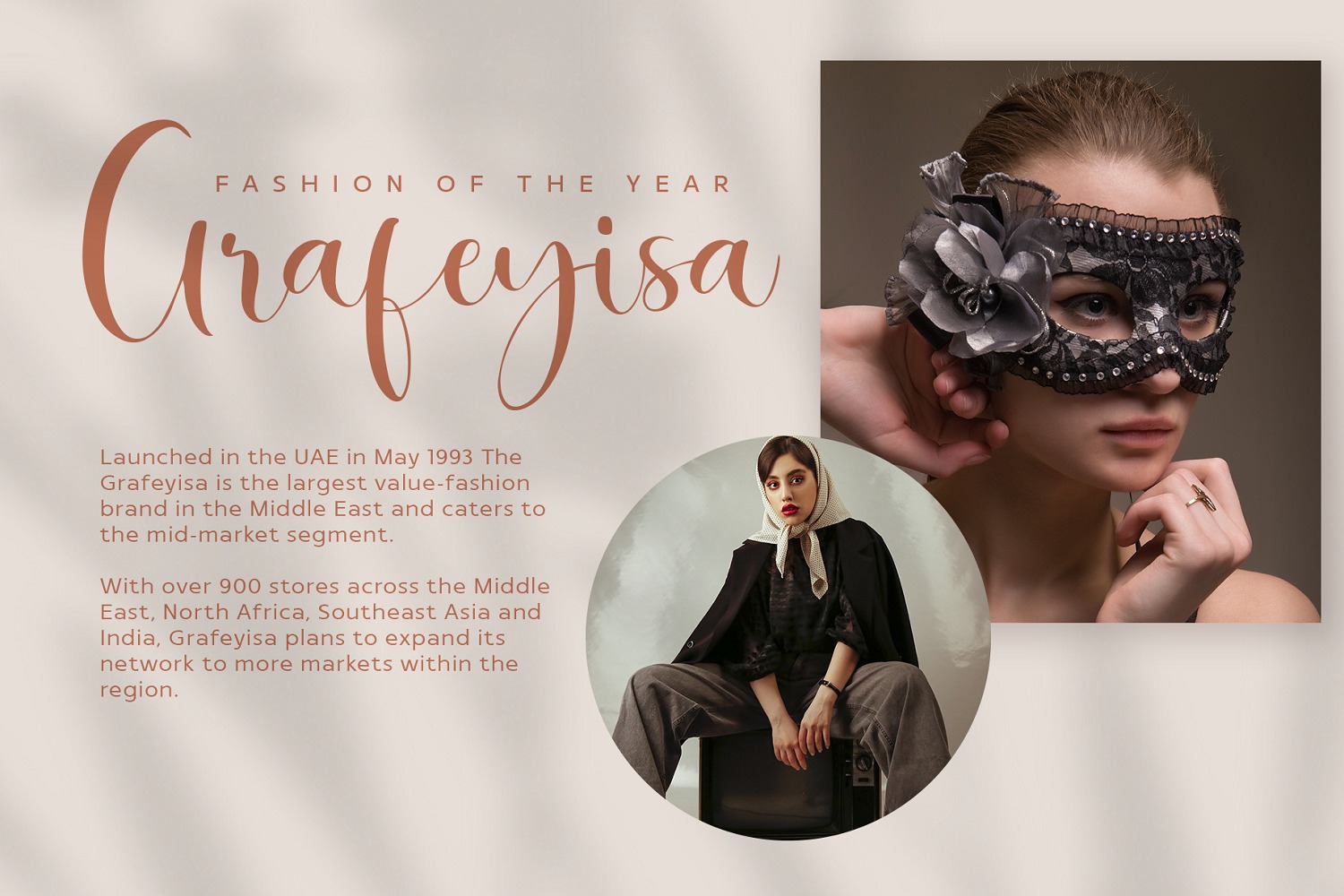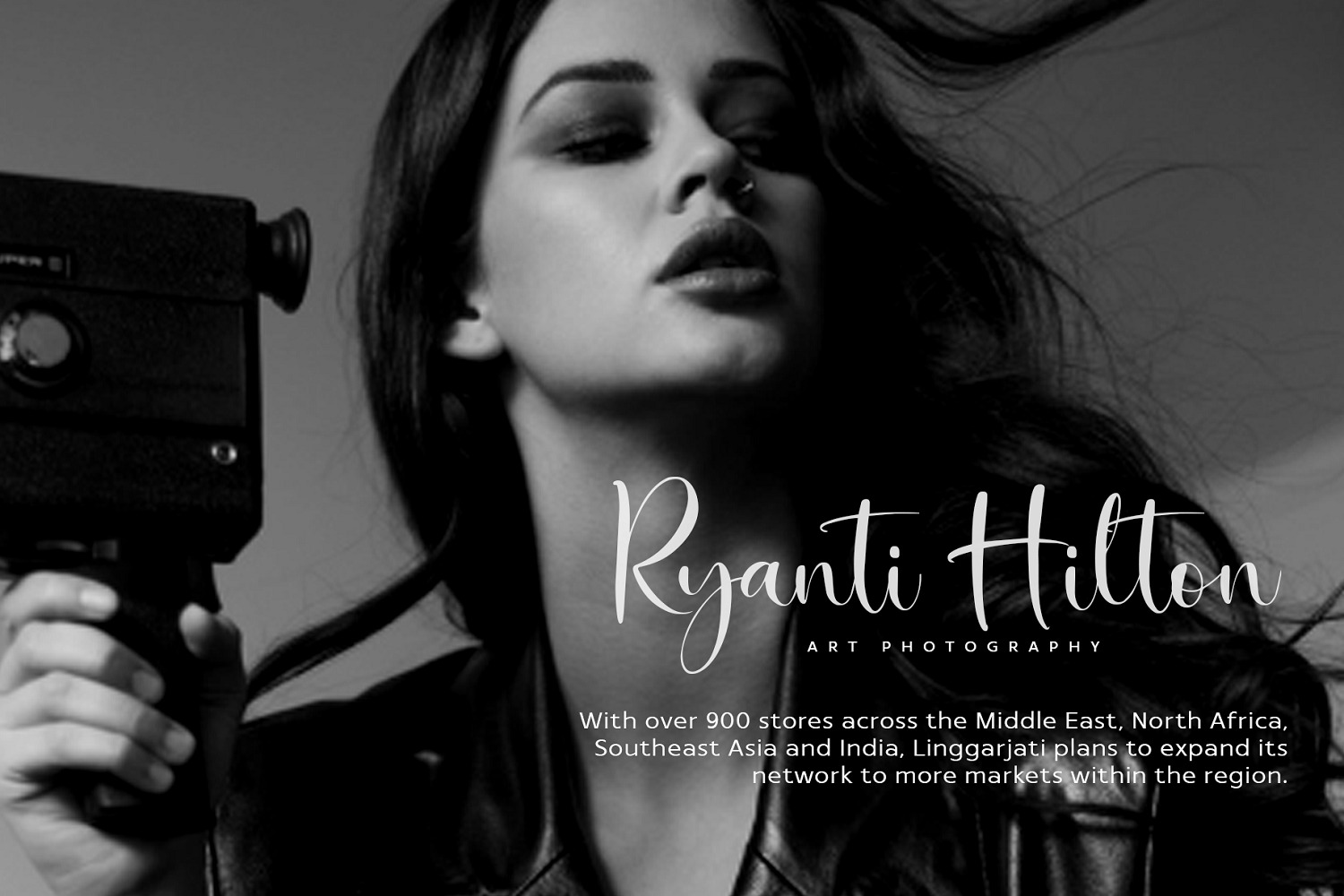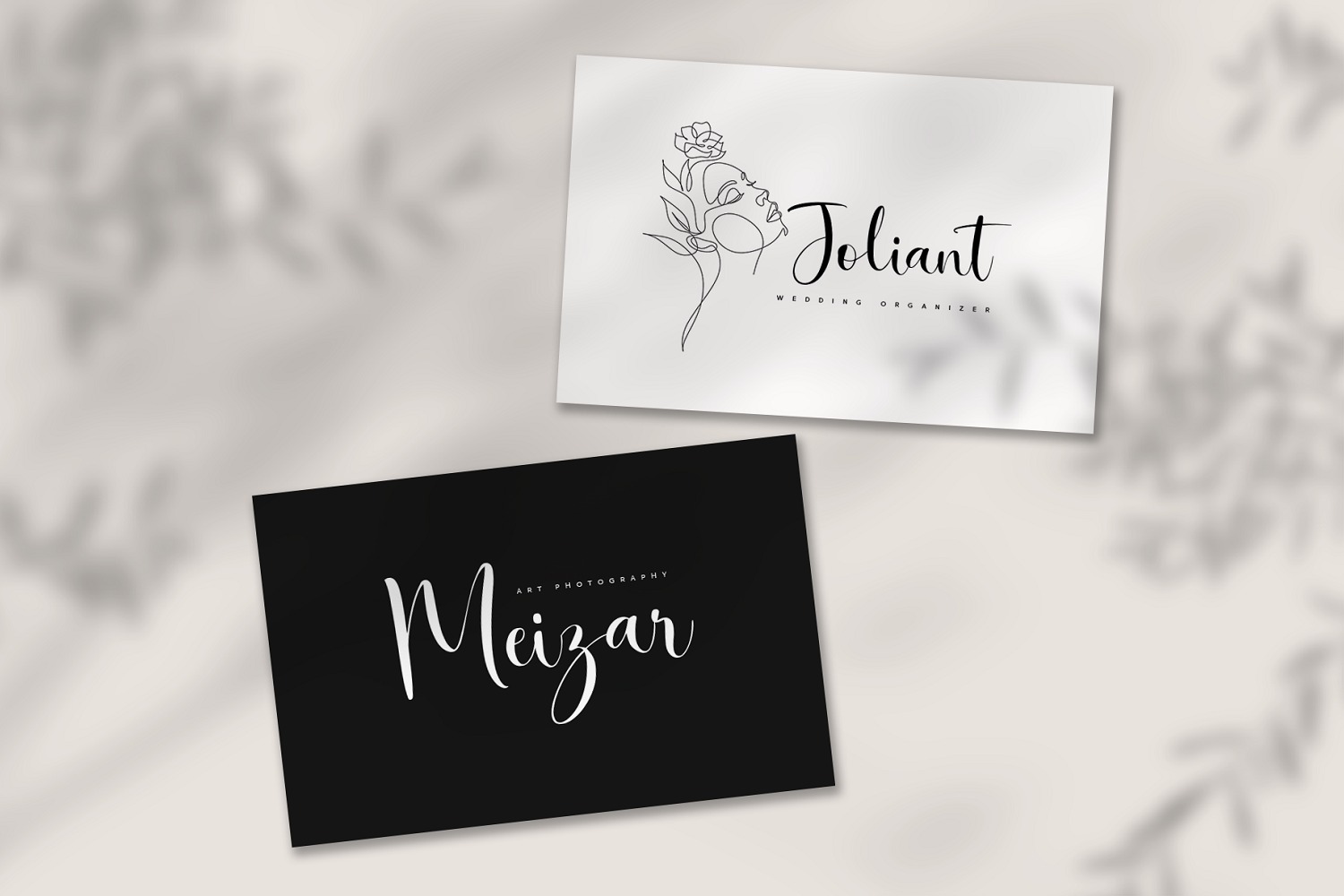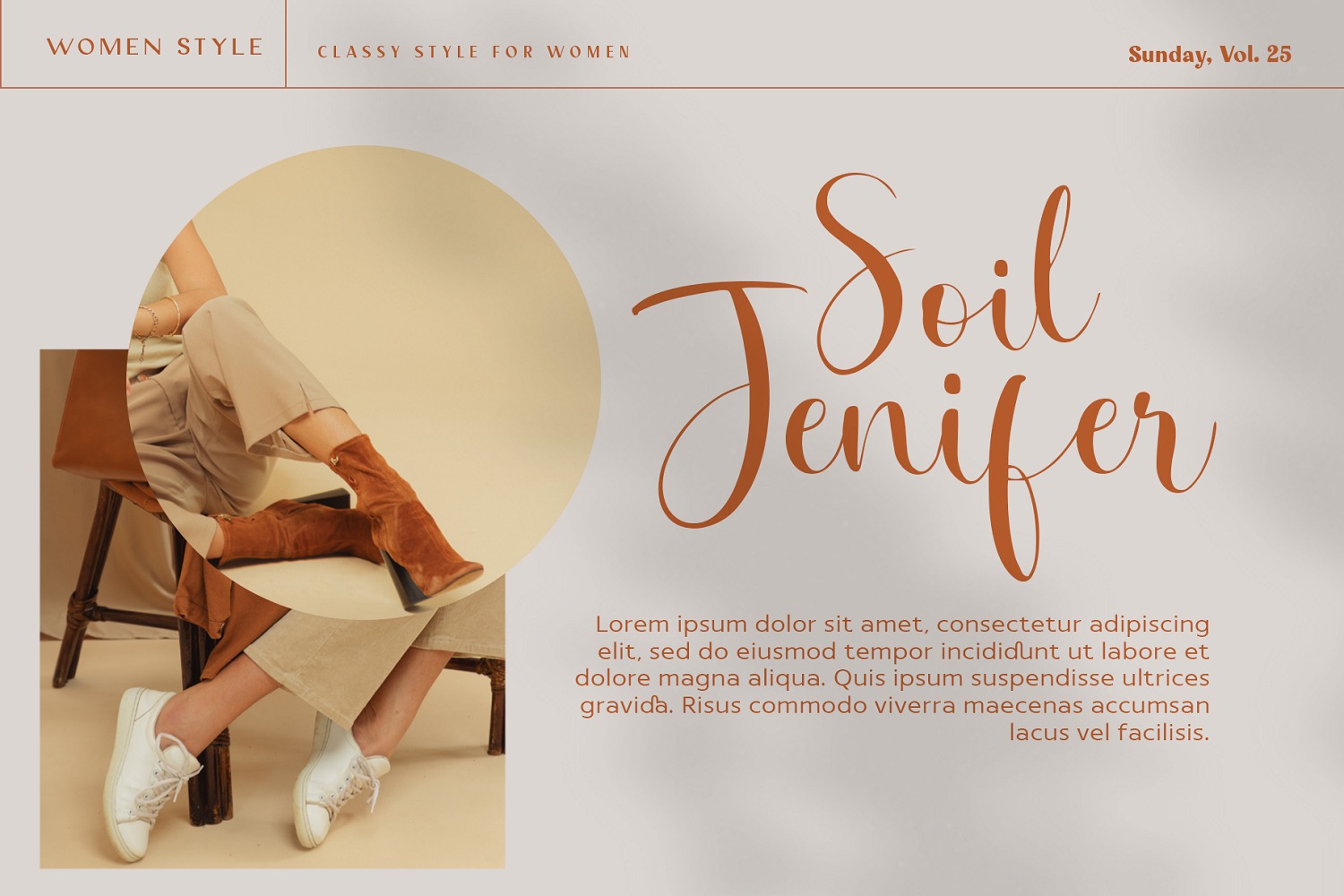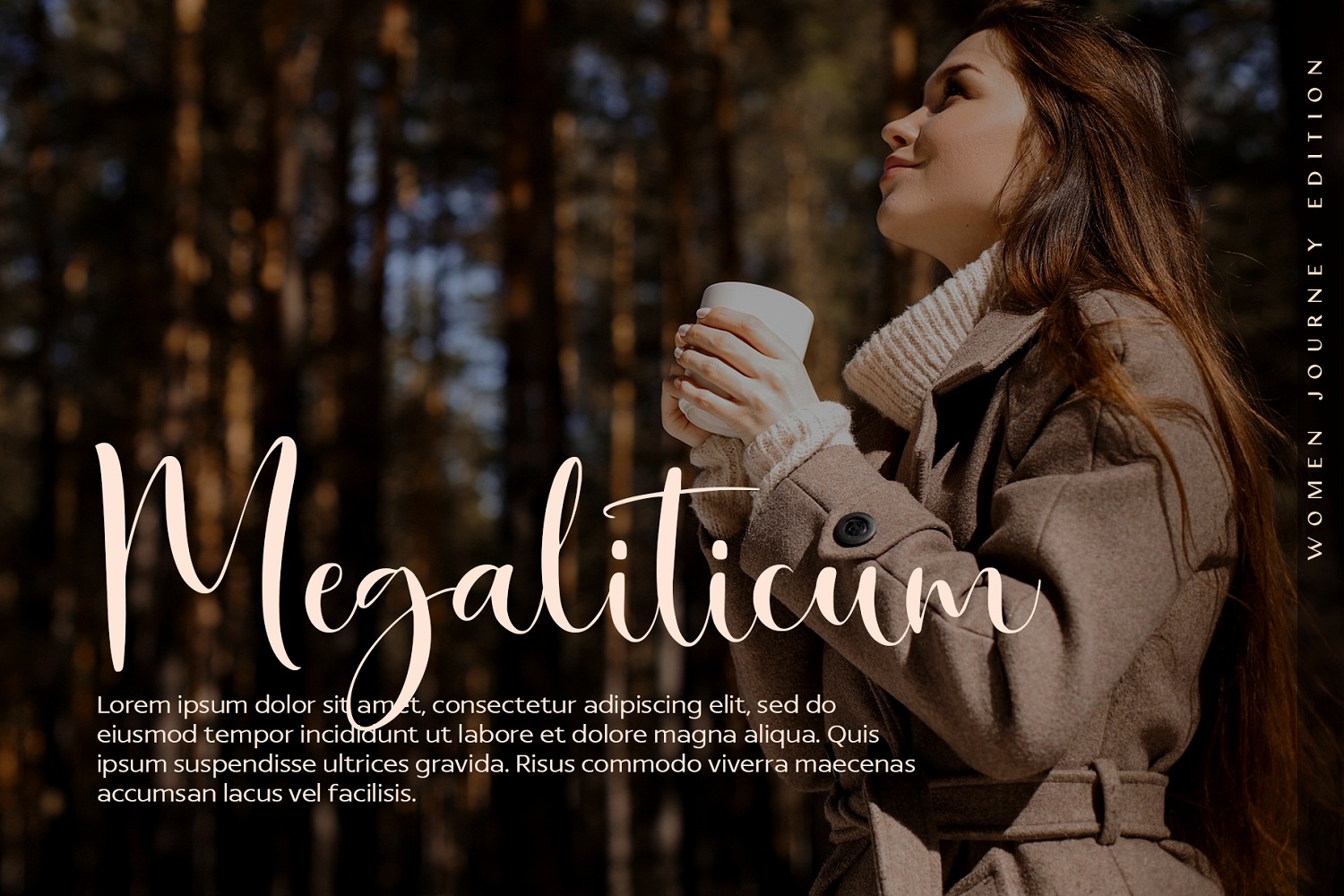
Bring your designs to life with the enchanting Mega Arsyta Script Handwritten Font! This exquisite typeface boasts a perfect blend of elegance and spontaneity, featuring beautifully flowing strokes that mimic the art of handwritten calligraphy. Ideal for creating stunning invitations, personalized branding, and eye-catching social media graphics, Mega Arsyta adds a unique, artistic touch to every project. With its graceful curves and stylish flair, this font is sure to make your text stand out. Download Mega Arsyta today and let your creativity shine!